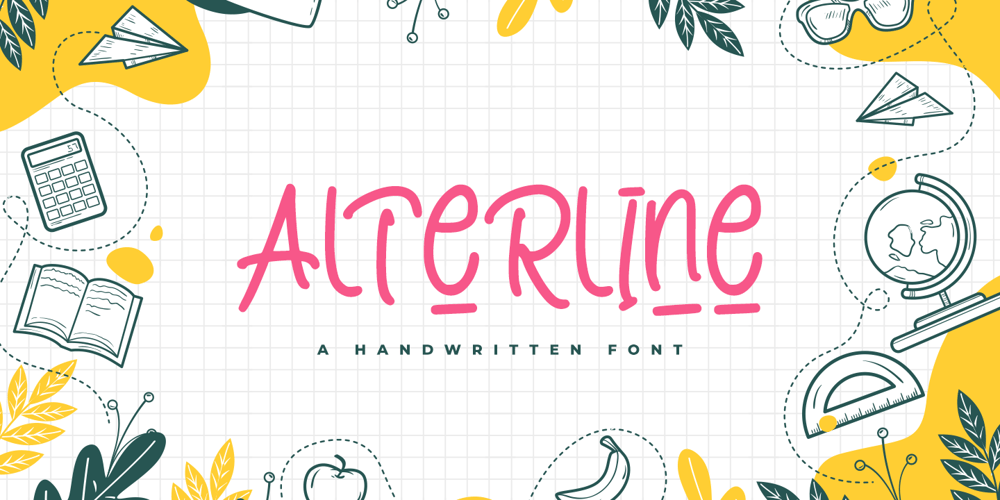
Alterline
Alterline font
Alterline Font Family was designed by Hayinah and published by Rockboys Studio. Alterline contains 1 styles and family package options. Alterline is a cute & playful font that will make your design looks modern, unique, and fun. Perfect for labels, quotes, posters, DIY projects, branding, packaging, greeting cards, websites, photos, kids photography, signs, window art, scrapbooking, tags, and so much more!